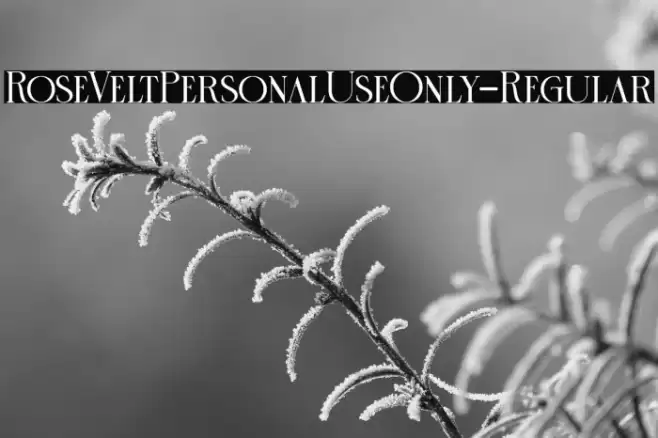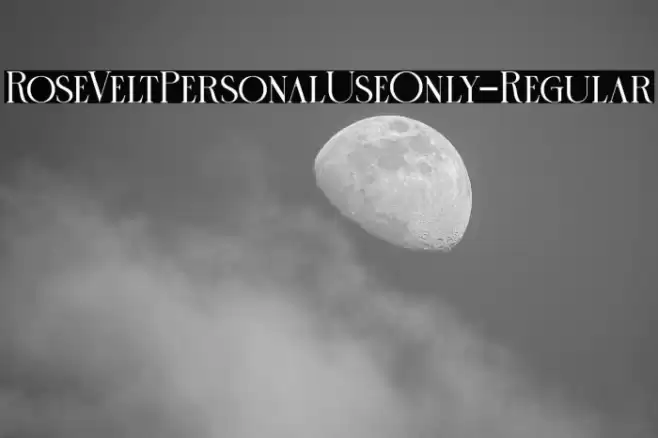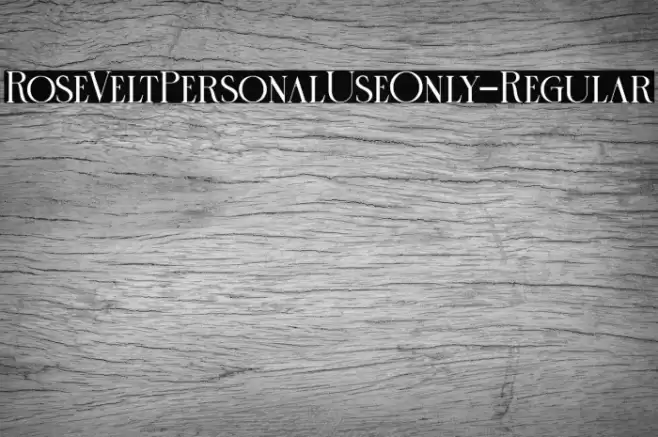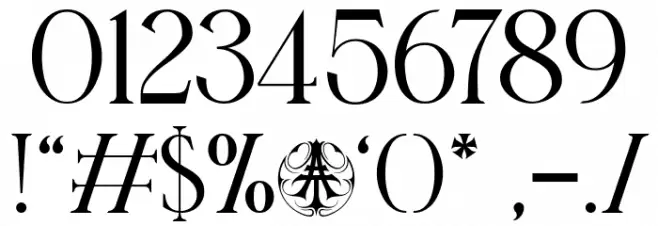
RoseVeltPersonalUseOnly-Regular Font
RoseVeltPersonalUseOnly-Regular Description
This font features a classic serif style with elegant and refined letterforms. The characters exhibit high contrast between thick and thin strokes, giving it a sophisticated and timeless appearance. The serifs are sharp and pronounced, adding to the font's formal and traditional aesthetic. The uppercase letters are tall and commanding, while the lowercase letters maintain a balanced and harmonious look. The numerals are consistent with the overall style, offering a cohesive appearance across all characters. Special characters are designed with the same attention to detail, ensuring versatility in various design applications.
A classic serif font with high contrast and elegant, refined letterforms from Regular fonts.
- Proposed Projects: Ideal for luxury branding, editorial design, formal invitations, and classic book covers.
- Overall Style: Classic